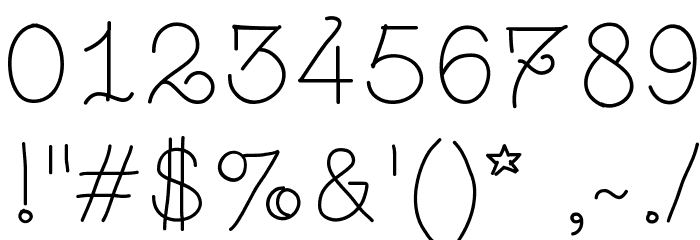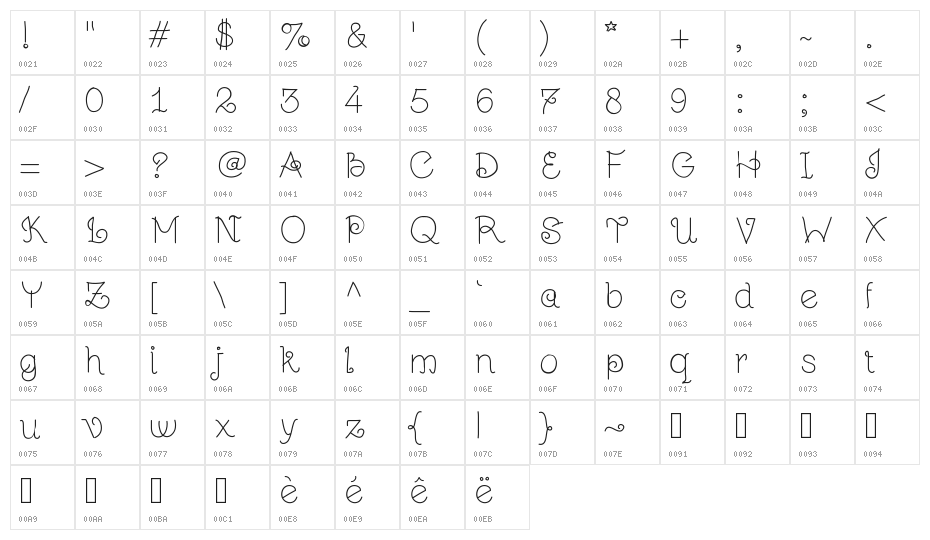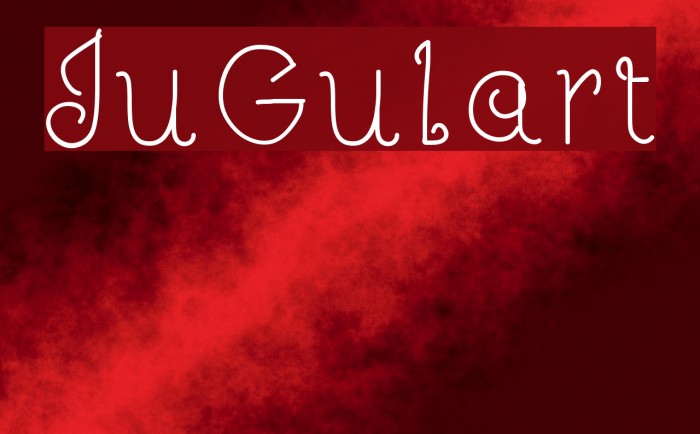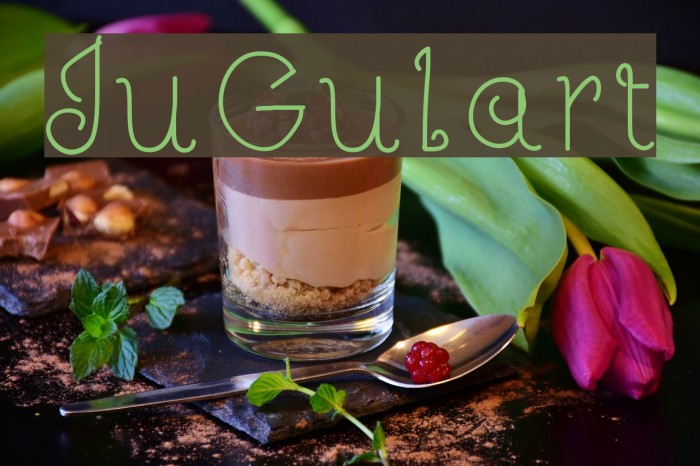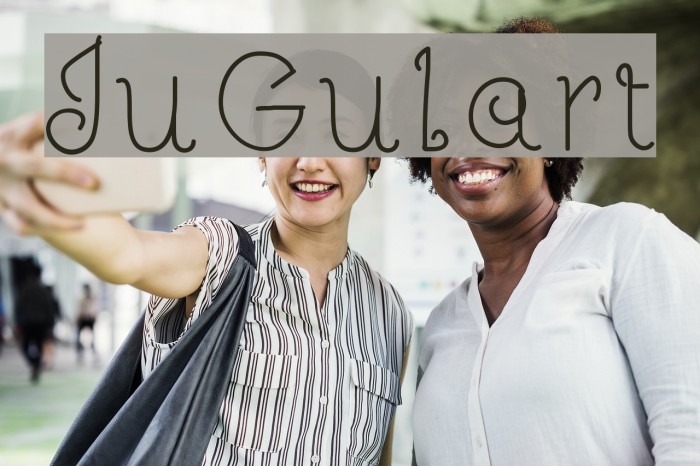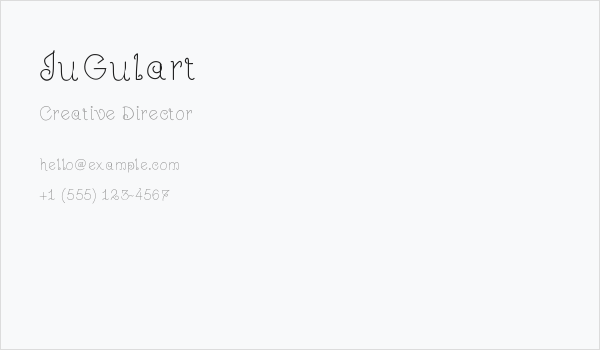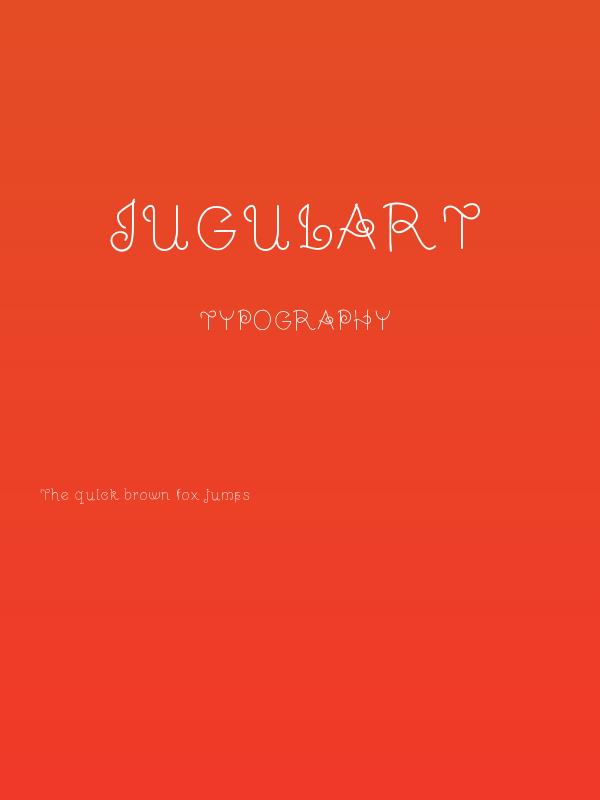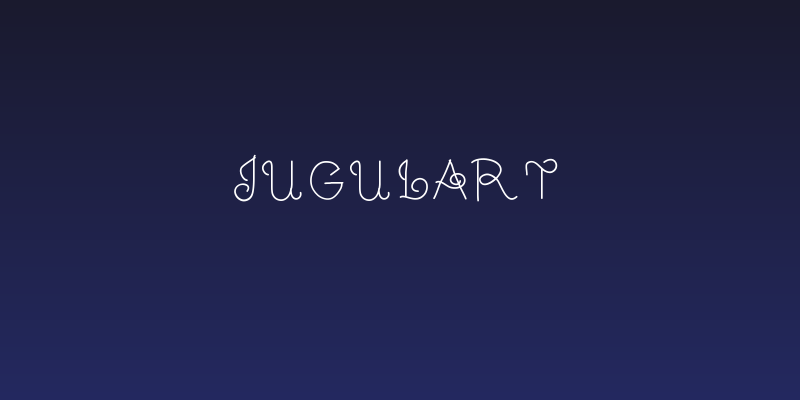
JuGulart Font
JuGulart Description
This font features a whimsical and playful design, characterized by its curly and decorative elements. The uppercase letters exhibit unique flourishes, particularly noticeable in the curves and loops that add a sense of movement and creativity. The lowercase letters maintain a consistent style, with some characters like 'g' and 'y' having distinctive tails that enhance the font's playful nature. Numbers are designed with a similar flair, ensuring they match the overall aesthetic. Special characters are included, each with its own decorative twist, making this font versatile for creative projects.
Overall StylePlayful and Whimsical
Use CaseHeadlines, Logos, Creative Projects
Proposed ProjectsIdeal for children's books, greeting cards, playful branding, and creative invitations.